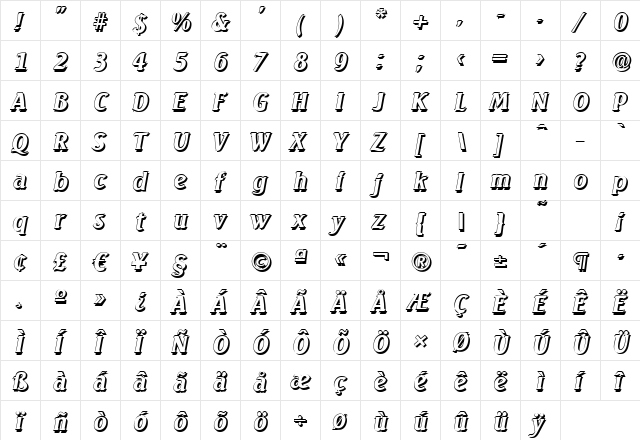
AbelBeckerShadow BoldItalic Font Preview
Design Context for AbelBeckerShadow Typeface
AbelBeckerShadow is built around its visual character rather than neutral utility — its distinctive forms are designed to make an impression at display sizes. The slanted form adds forward momentum and visual energy. The heavy weight commands attention and anchors typographic hierarchies.
Font Pairing: Pair with a clean neutral sans-serif for body copy to let AbelBeckerShadow's character lead without overwhelming the composition.
Pro Tip: Use AbelBeckerShadow exclusively at display sizes — it was designed to be seen, not read at length. Let a neutral companion handle body copy.